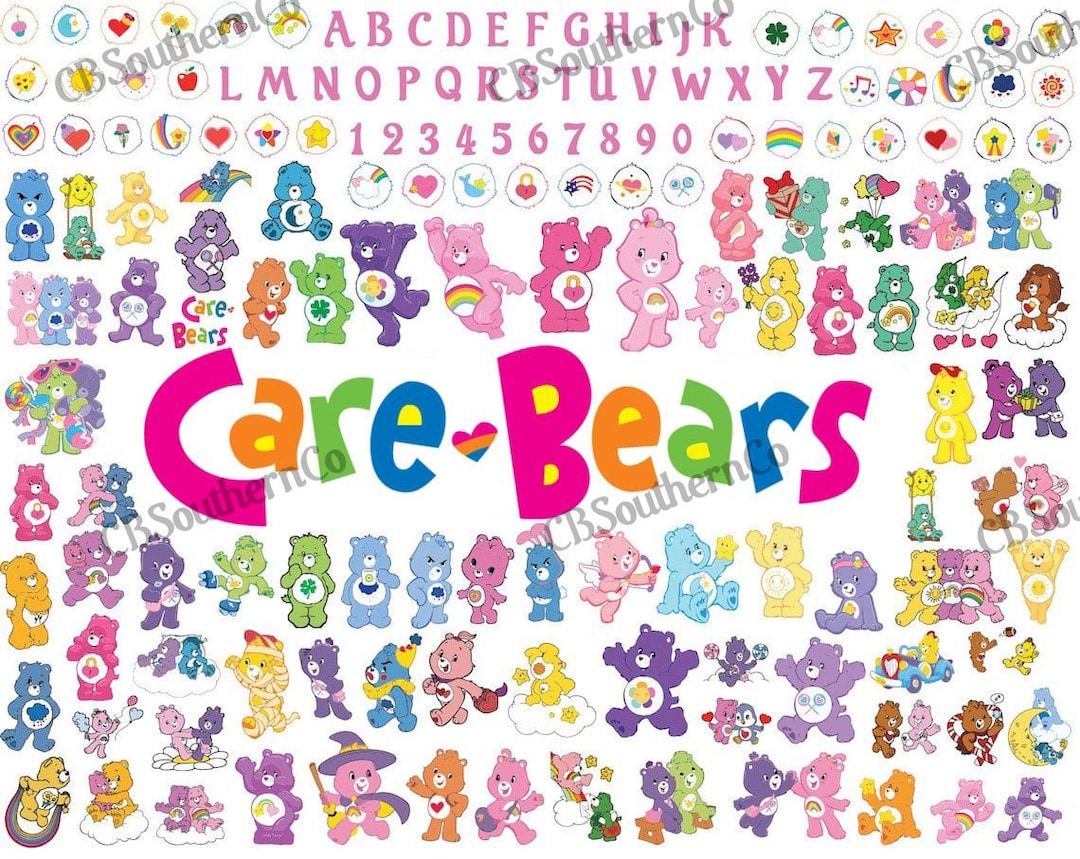
Care Bears Font . Web download care bear family font free! Learn more about the history and values of the care bears and other similar fonts.
Learn more about the history and values of the care bears and other similar fonts. Uploaded by zemin 𑁋 (1 style) report a violation add to list. Web download care bear family font, a free font based on the care bears typeface by american greetings.
Care Bear Family Font
Web download care bears font, a dingbat font with 627 glyphs inspired by the popular children's characters. 367,974 downloads (31 yesterday) 7 comments. Learn more about the history and values of the care bears and other similar fonts. Web download care bear family font, a free font based on the care bears typeface by american greetings.
Care Bears Font - Web download care bears font, a dingbat font with 627 glyphs inspired by the popular children's characters. ️ customize your own preview on ffonts.net to make sure it`s the right one for your. Learn more about the history and values of the care bears and other similar fonts. Web download care bear family font free! Web care bear family à.
Care Bears Font - ️ customize your own preview on ffonts.net to make sure it`s the right one for your. Web care bear family font : See the font with your. Web download care bear family font free! Web the care bear family font contains 272 beautifully designed characters.
Care Bears Font - ️ customize your own preview on ffonts.net to make sure it`s the right one for your. Uploaded by zemin 𑁋 (1 style) report a violation add to list. Web download care bears font, a dingbat font with 627 glyphs inspired by the popular children's characters. Web download care bear family font, a free font based on the care bears typeface.
Care Bears Font - Uploaded by zemin 𑁋 (1 style) report a violation add to list. Web download care bear family font free! Web care bear family à. Learn more about the history and values of the care bears and other similar fonts. Web download care bears font, a dingbat font with 627 glyphs inspired by the popular children's characters.
Care Bears Font - ️ customize your own preview on ffonts.net to make sure it`s the right one for your. Web download care bears font, a dingbat font with 627 glyphs inspired by the popular children's characters. Web care bear family font : Web the care bear family font contains 272 beautifully designed characters. Learn more about the history and values of the care.
Care Bears Font - Free for personal use, created by iacy and available on dafont.com. Web the care bear family font contains 272 beautifully designed characters. See the font with your. Web download care bears font, a dingbat font with 627 glyphs inspired by the popular children's characters. Web download care bear family font, a free font based on the care bears typeface by.
Care Bears Font - Web care bear family font : ️ customize your own preview on ffonts.net to make sure it`s the right one for your. Web download care bear family font, a free font based on the care bears typeface by american greetings. Uploaded by zemin 𑁋 (1 style) report a violation add to list. Free for personal use, created by iacy and.
Care Bears Font - Web care bear family font : Web download care bear family font, a free font based on the care bears typeface by american greetings. Web download care bear family font free! Download free for desktop & webfont. See the font with your.
Care Bears Font - Web care bear family font : 367,974 downloads (31 yesterday) 7 comments. Web download care bear family font free! Uploaded by zemin 𑁋 (1 style) report a violation add to list. ️ customize your own preview on ffonts.net to make sure it`s the right one for your.
Care Bears Font - 367,974 downloads (31 yesterday) 7 comments. Learn more about the history and values of the care bears and other similar fonts. Web the care bear family font contains 272 beautifully designed characters. Download free for desktop & webfont. See the font with your.
Care Bears Font - See the font with your. Free for personal use, created by iacy and available on dafont.com. Learn more about the history and values of the care bears and other similar fonts. Web care bear family font : 367,974 downloads (31 yesterday) 7 comments.
Care Bears Font - Web download care bears font, a dingbat font with 627 glyphs inspired by the popular children's characters. Uploaded by zemin 𑁋 (1 style) report a violation add to list. 367,974 downloads (31 yesterday) 7 comments. See the font with your. Download free for desktop & webfont.
Care Bears Font - Learn more about the history and values of the care bears and other similar fonts. Uploaded by zemin 𑁋 (1 style) report a violation add to list. Download free for desktop & webfont. Web care bear family font : See the font with your.
Care Bears Font - Web the care bear family font contains 272 beautifully designed characters. Web download care bears font, a dingbat font with 627 glyphs inspired by the popular children's characters. See the font with your. Web download care bear family font, a free font based on the care bears typeface by american greetings. 367,974 downloads (31 yesterday) 7 comments.